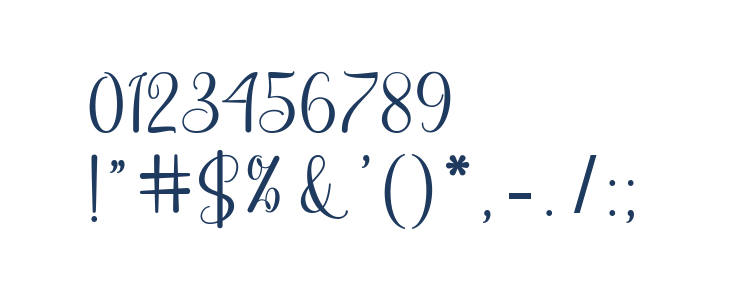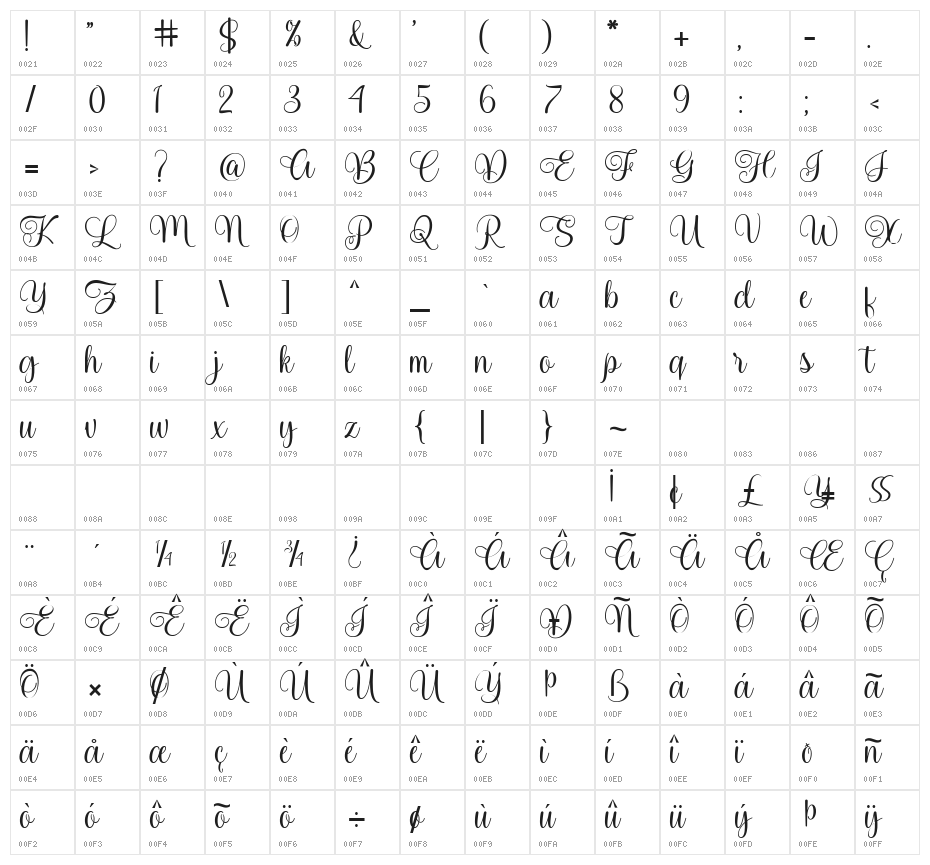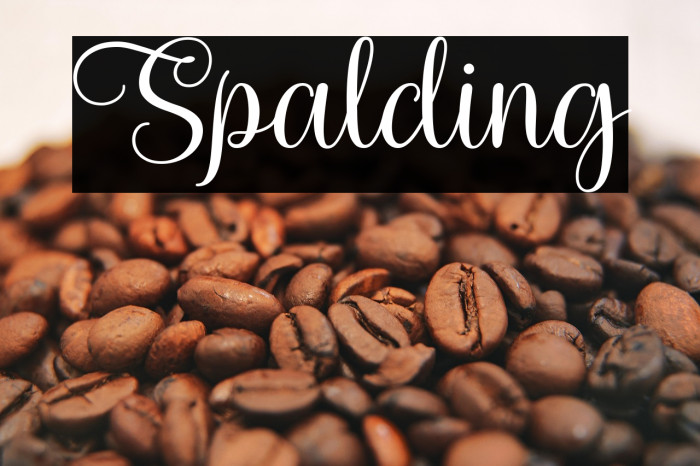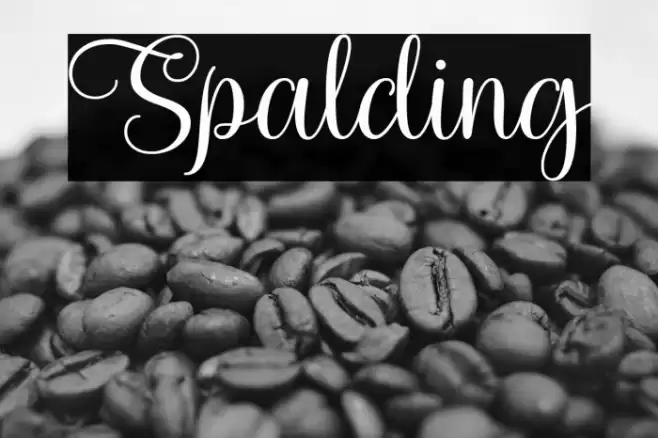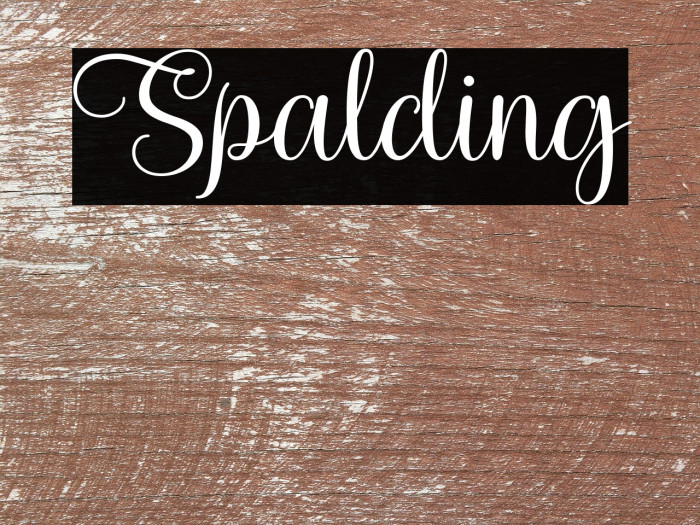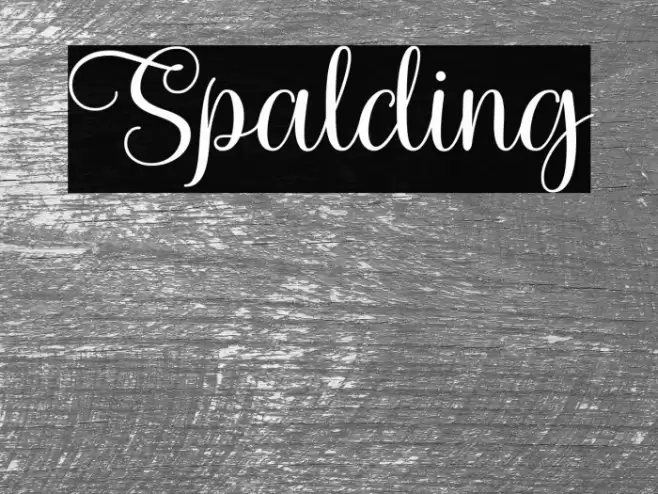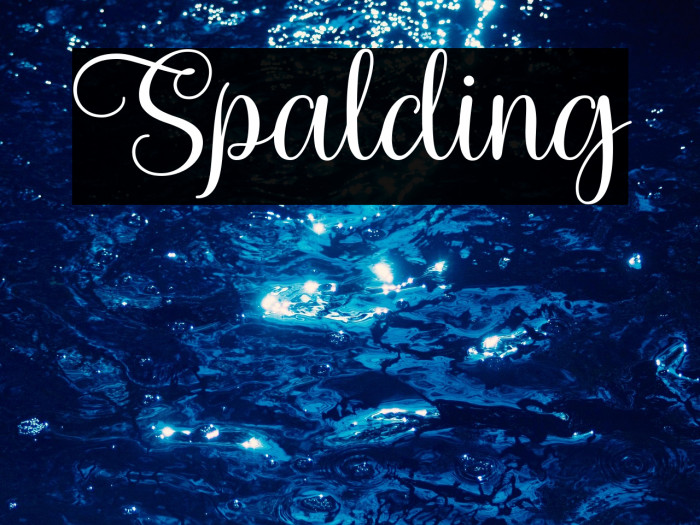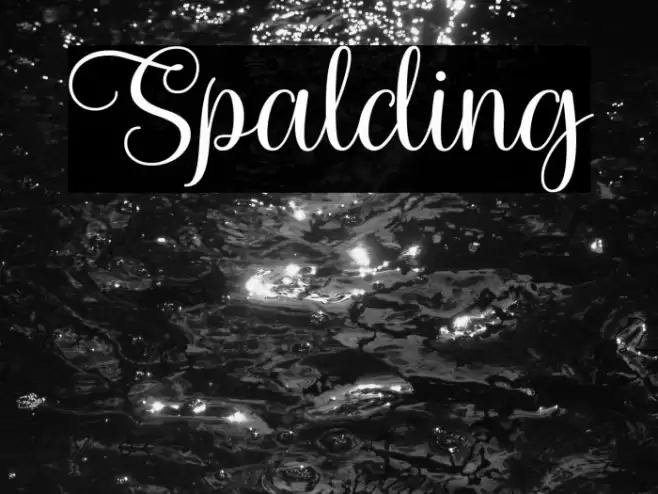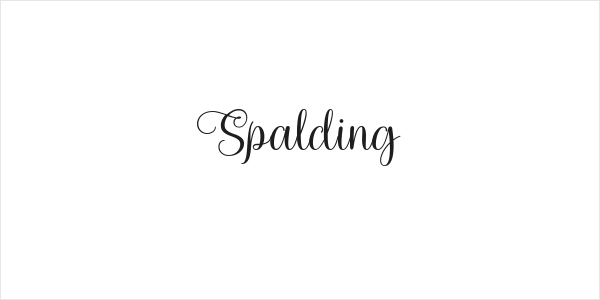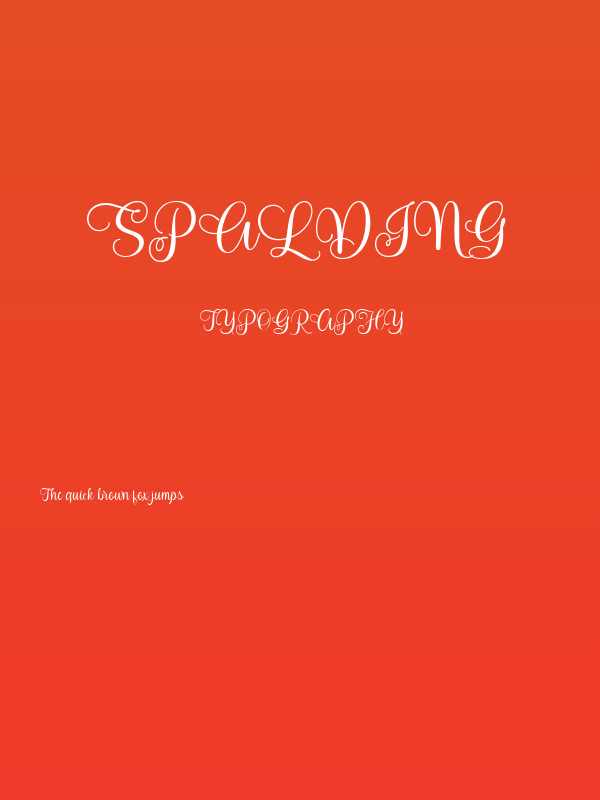
Spalding Font
Spalding Description
This font features an elegant and flowing script style with a modern twist. The uppercase letters are adorned with delicate swashes, adding a touch of sophistication and flair. The lowercase letters maintain a smooth and consistent flow, making it highly legible while retaining its decorative appeal. The numerals are designed to match the overall aesthetic, with rounded forms and a slight slant that complements the script style. Special characters are thoughtfully integrated, maintaining the font's cohesive look. This font is ideal for projects that require a touch of elegance and personality.